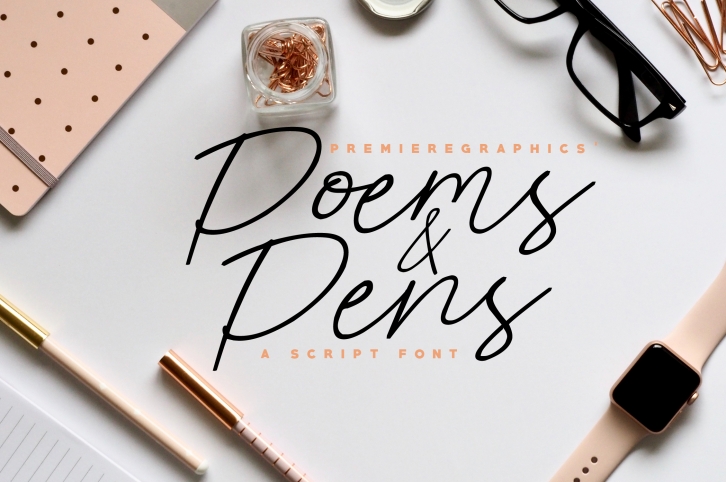
Poems & Pens Script is a gorgeous font that was realeased on July 7, 2018. The font can be used in many style contexts and design environments. Perfect for invitations, magazines, websites, logos, and more! It was designed by PremiereGraphics and the file size is 19.44 MB. Thanks for checking out this font!